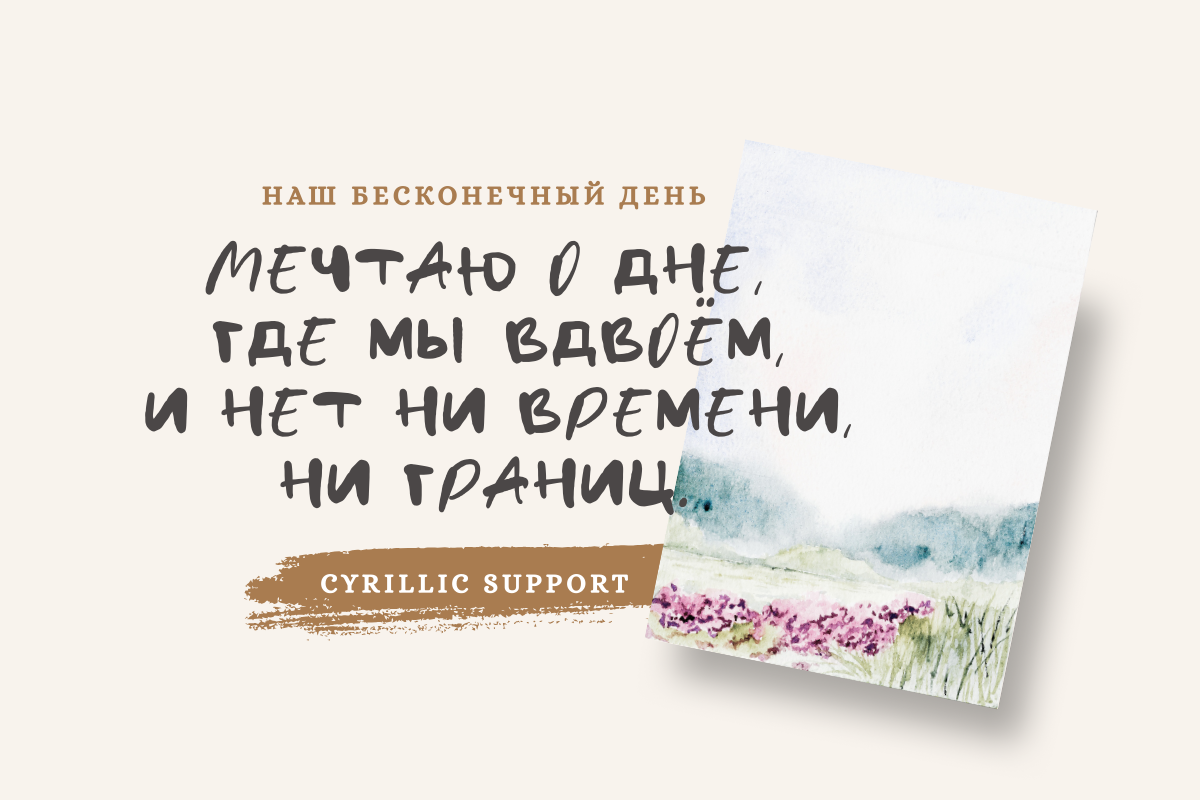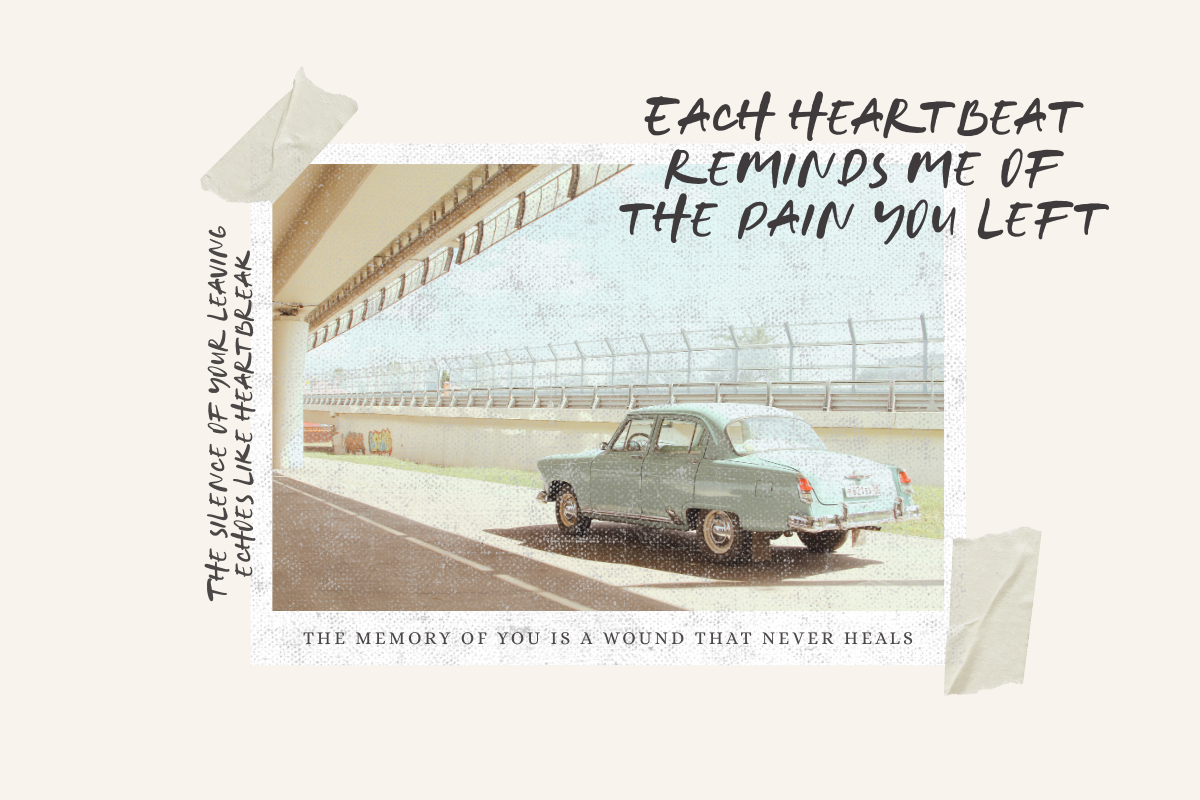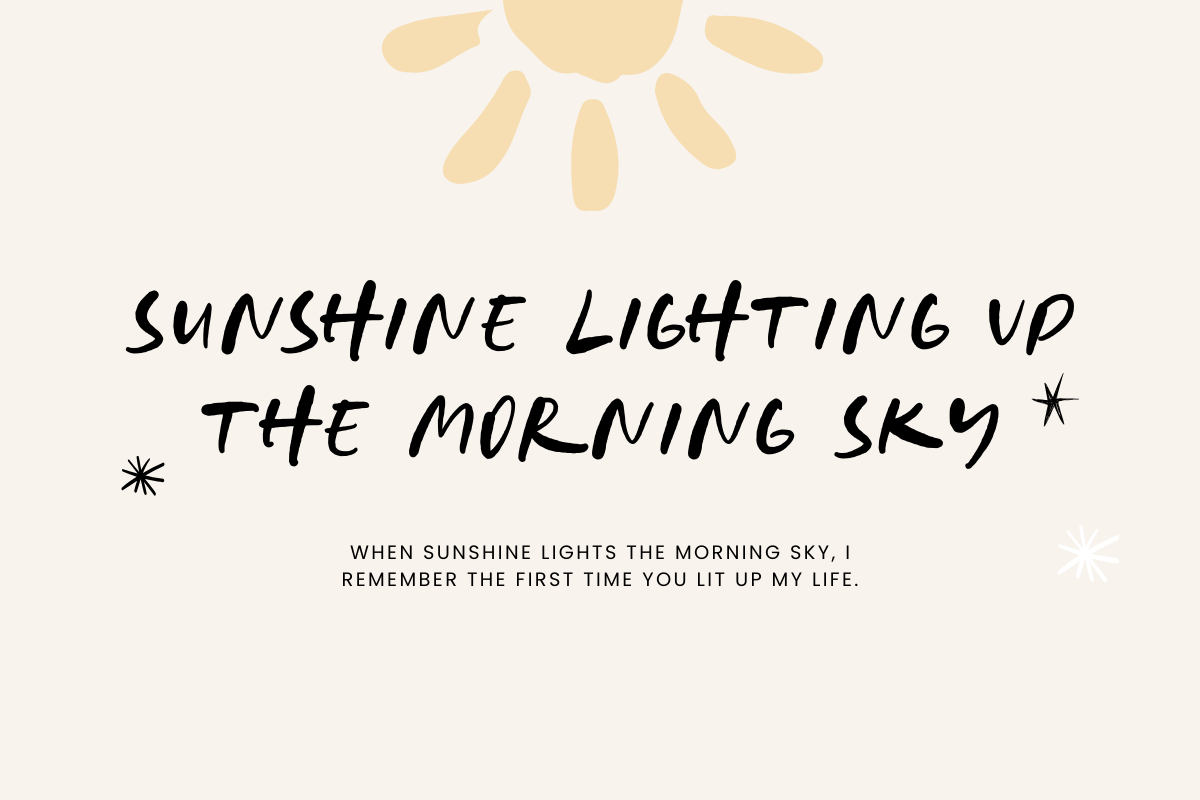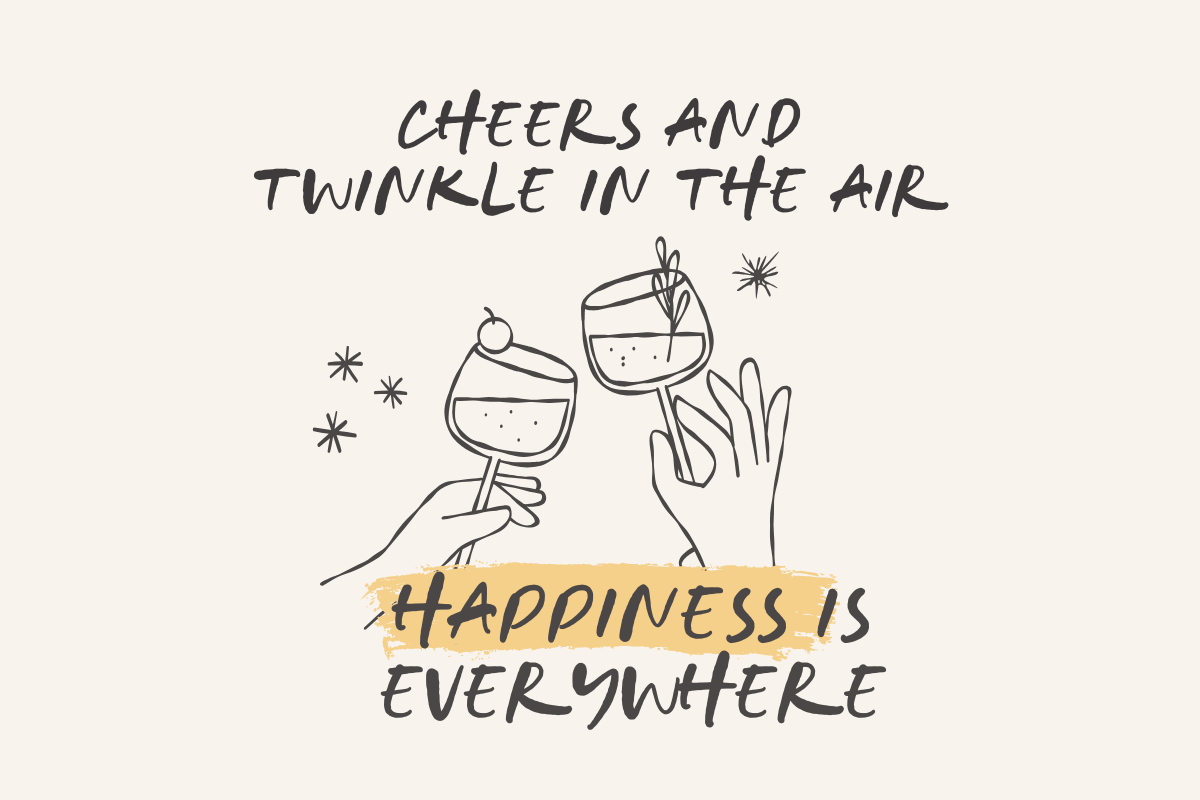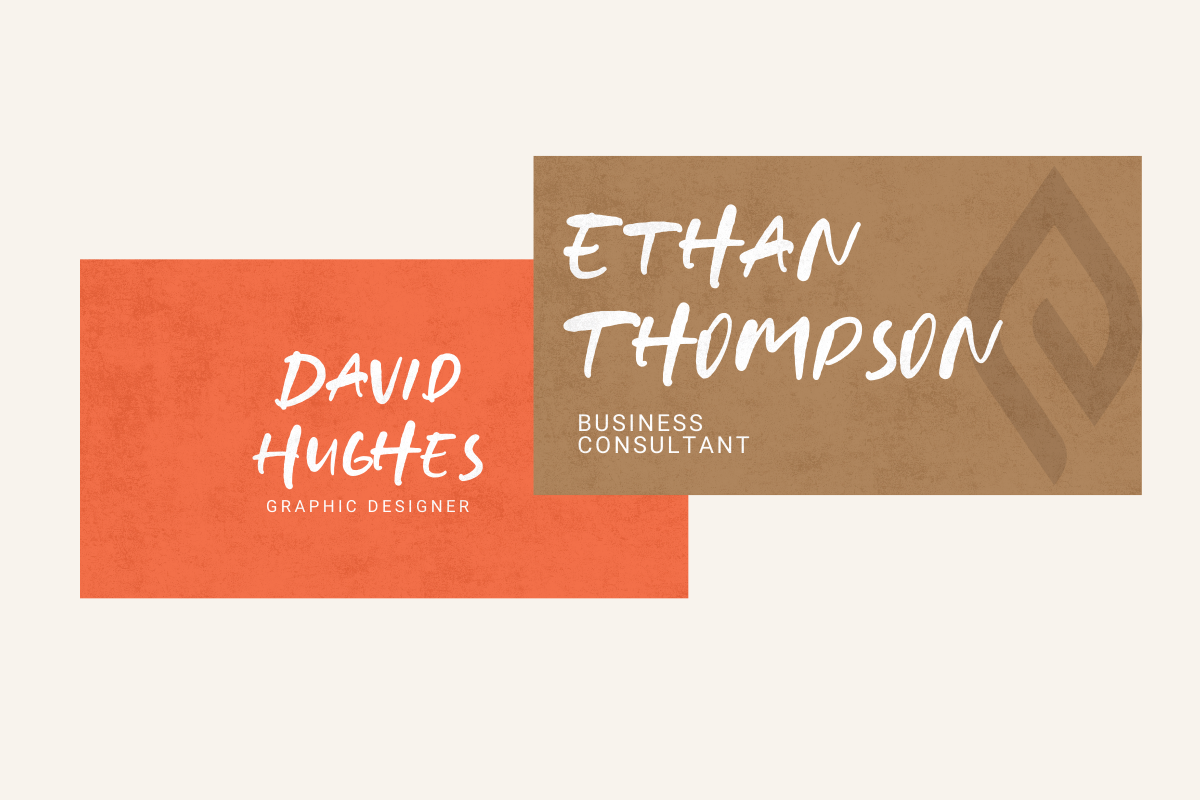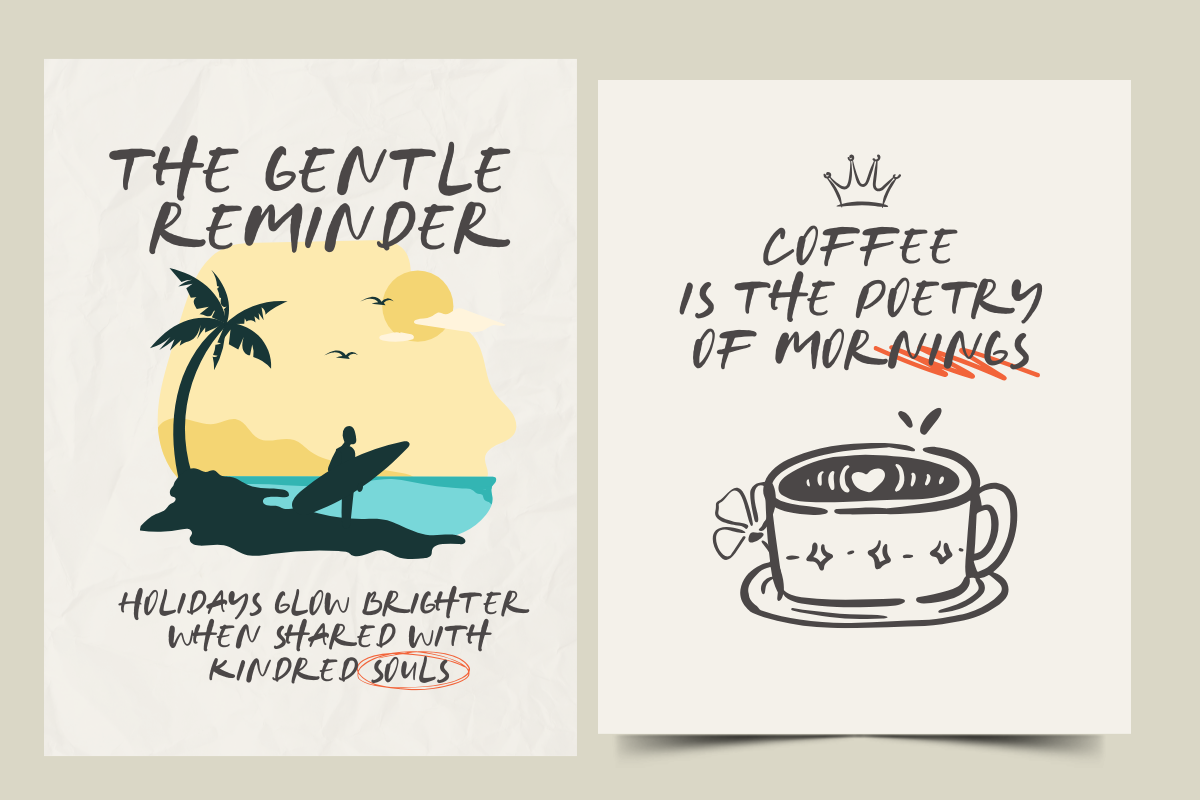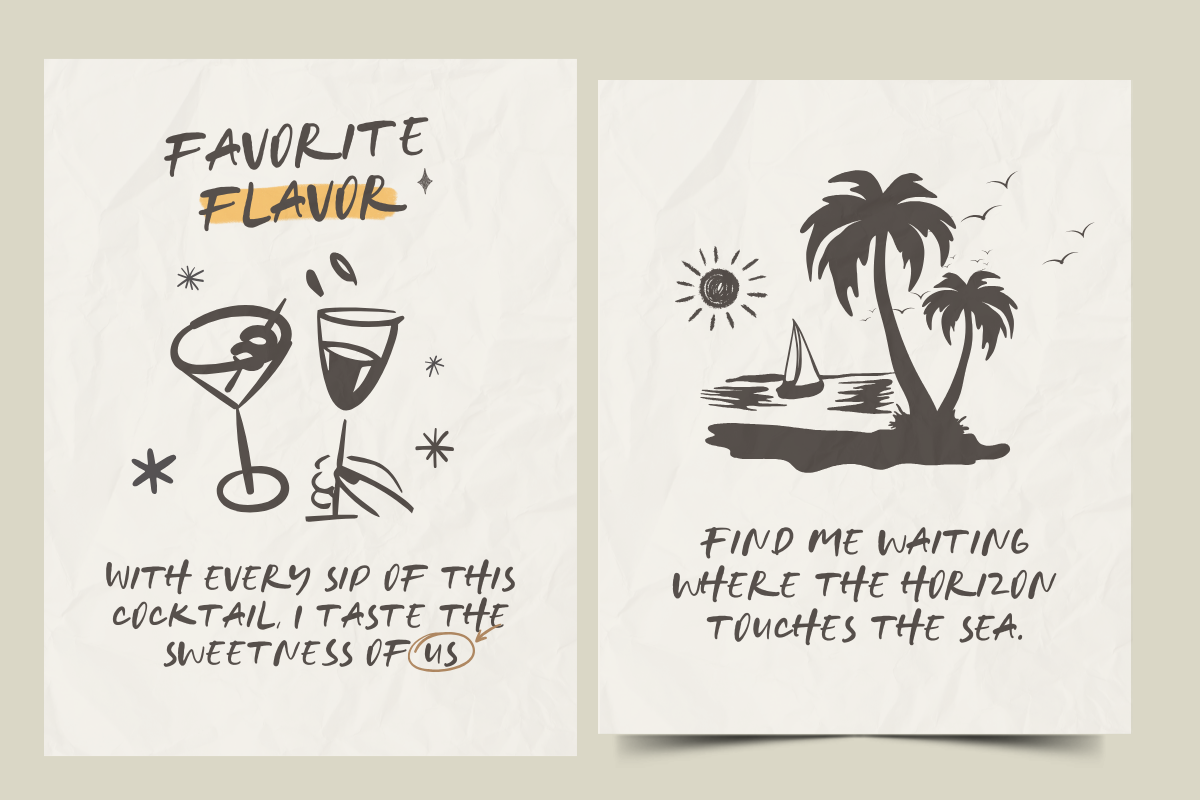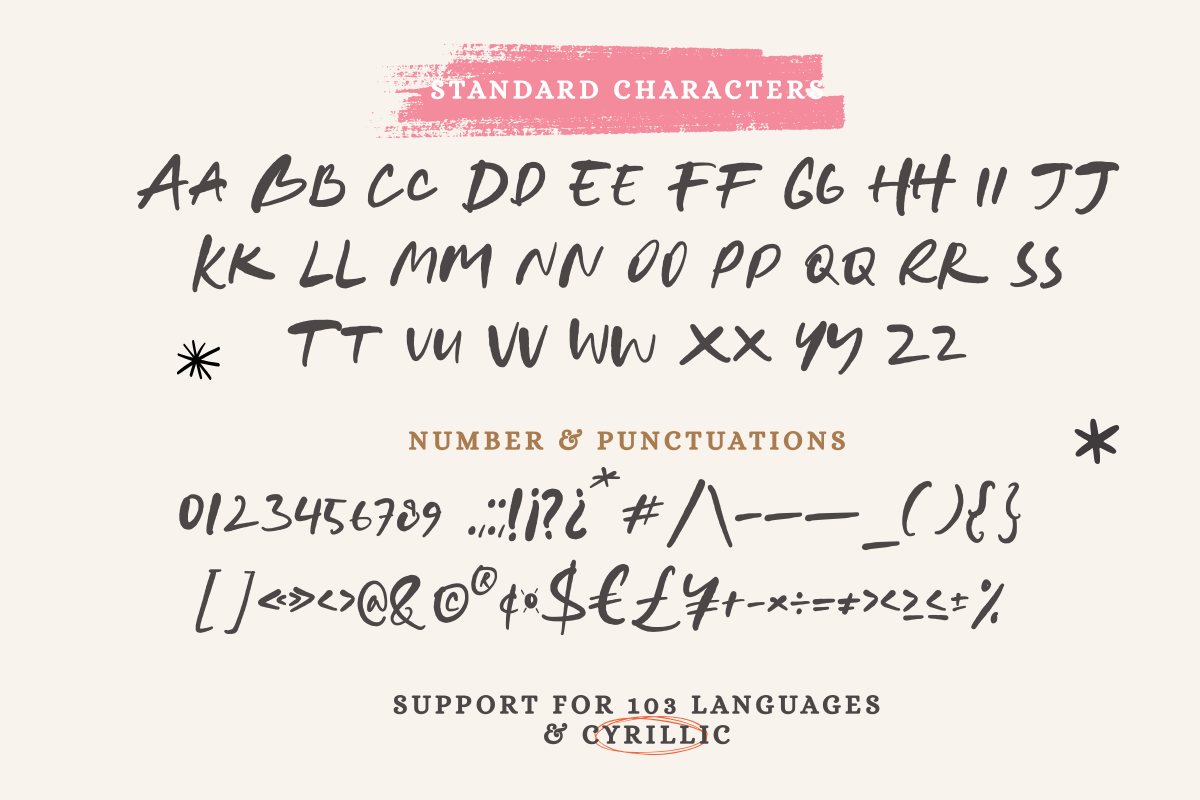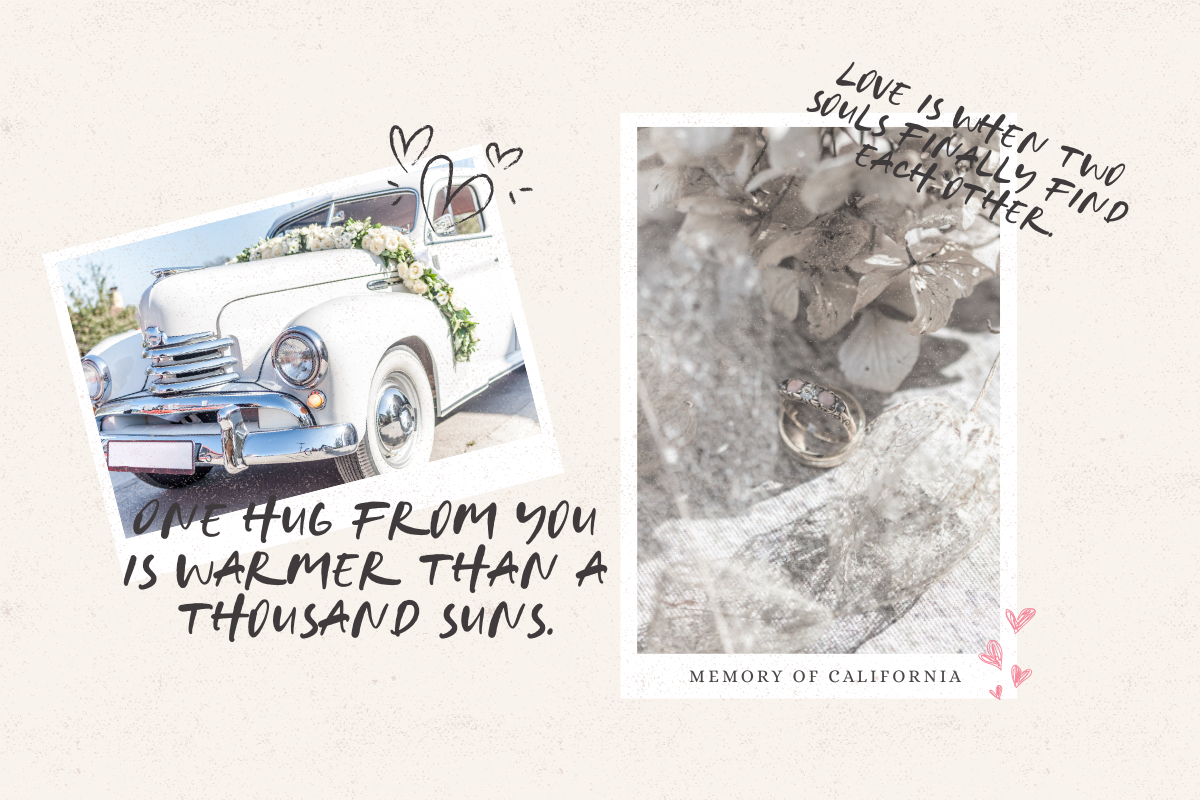
Feather
Feather Font is a natural handwritten typeface that captures the beauty of authentic pen strokes. Designed with organic texture and fluid movement, it adds a warm, personal touch to any design. Its realistic details make your text look effortlessly stylish, as if written by hand with care.
Perfect for branding, invitations, social media, packaging, and creative projects, Feather also includes a variety of ligatures to enhance its handwritten feel. With its elegant flow and authentic charm, this font brings both personality and sophistication to your designs.
Feather Font supports 103 international languages and offers full Cyrillic support, making it versatile and suitable for global projects.